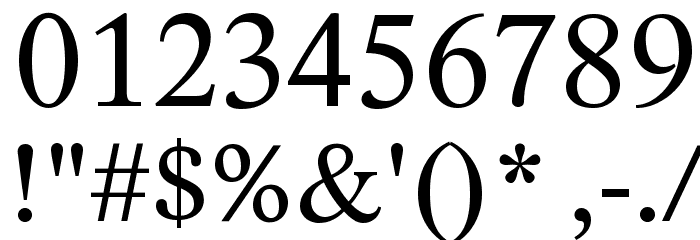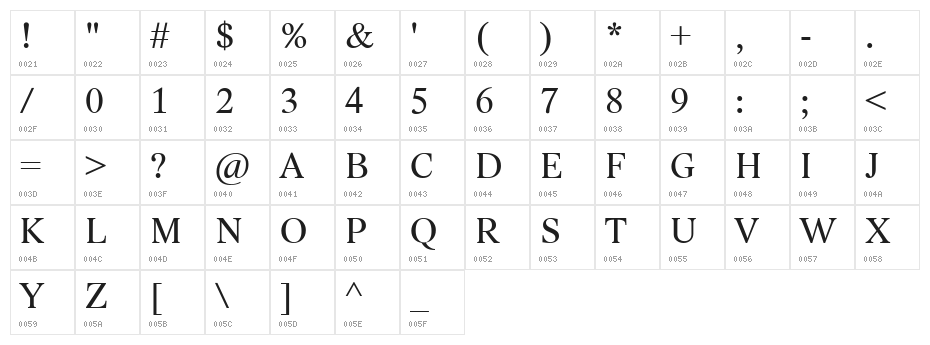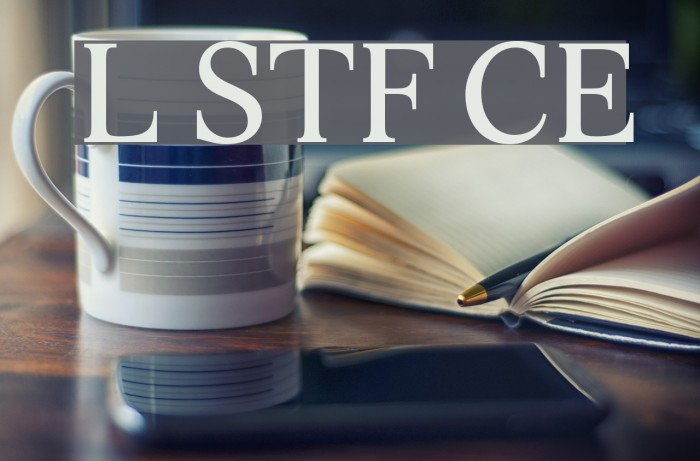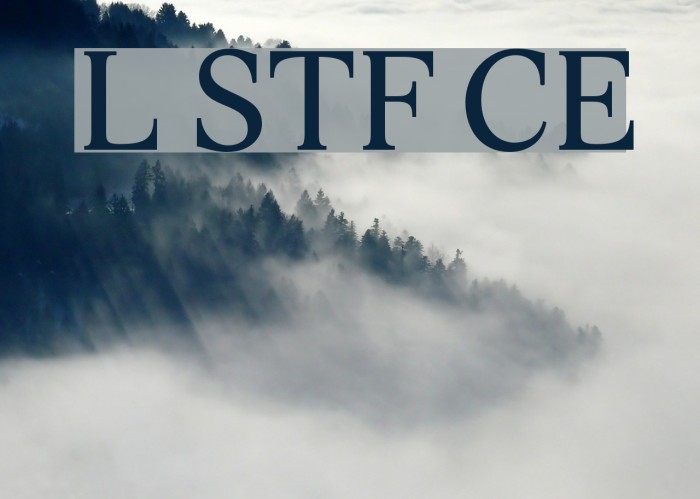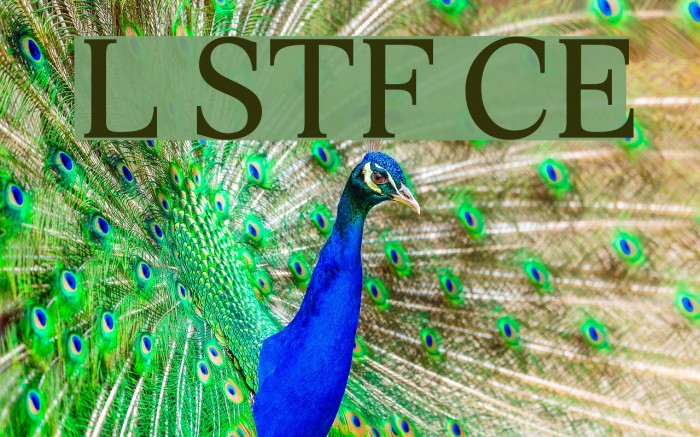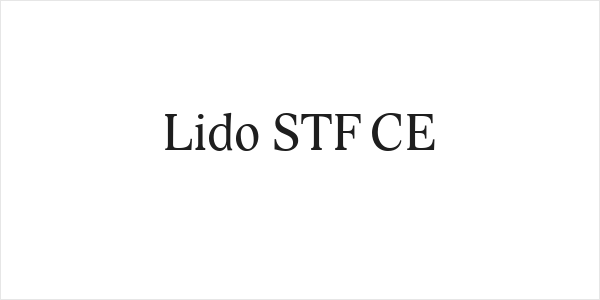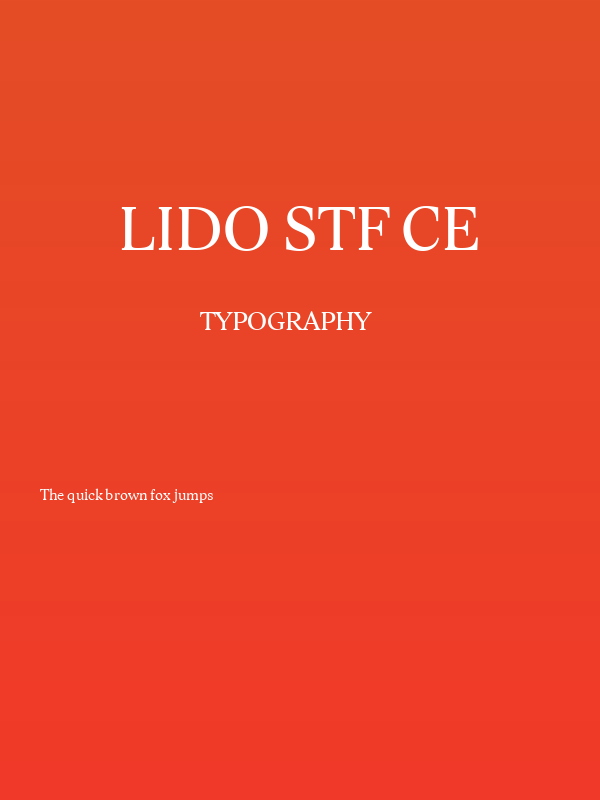
Lido STF CE Font
Lido STF CE Description
This font exhibits a classic serif style with elegant and refined strokes. The characters are well-balanced, featuring a moderate contrast between thick and thin lines, which enhances readability while maintaining a sophisticated appearance. The uppercase letters are stately and commanding, while the lowercase letters offer a smooth and flowing look. The numerals are clear and distinct, making them suitable for both text and display purposes. Special characters are designed with the same attention to detail, ensuring consistency across all glyphs. This font is versatile, suitable for a variety of applications where a touch of elegance and tradition is desired.
| Use Case | Body text, Headlines, Editorial design |
| Proposed Projects | Ideal for book typesetting, formal invitations, branding for luxury products, and editorial design. |